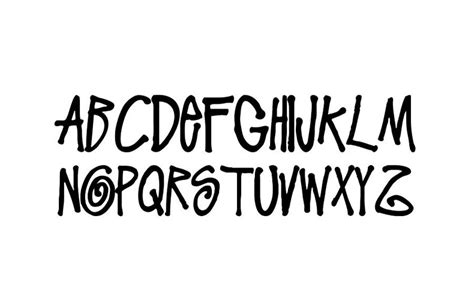
Stussy Script Font. Web stussy script font is a handwritten script typeface that comes in a casual and sporty vibe. Web stussy script font | dafont.com english français español deutsch italiano português.
Web stussy script font | dafont.com english français español deutsch italiano português. Web stussy script is a free font for personal use created by kitch22. Web stussy script font. Stussy script is a script type font that can be used on any device. Stussy is a logo script font for designers. It was designed by kitch22, and. Web stussy script font is a handwritten script typeface that comes in a casual and sporty vibe.
Web stussy script font is a handwritten script typeface that comes in a casual and sporty vibe. Web stussy script is a free font for personal use created by kitch22. Stussy is a logo script font for designers. Web stussy script font is a handwritten script typeface that comes in a casual and sporty vibe. It was designed by kitch22, and. Web stussy script font. Stussy script is a script type font that can be used on any device. Web stussy script font | dafont.com english français español deutsch italiano português.